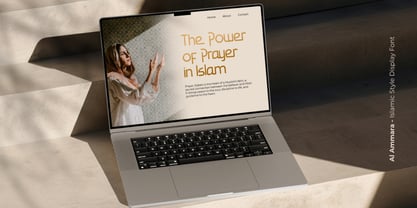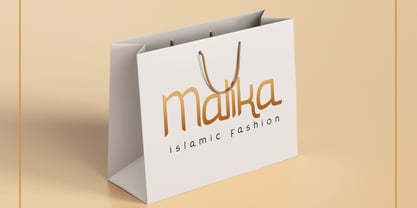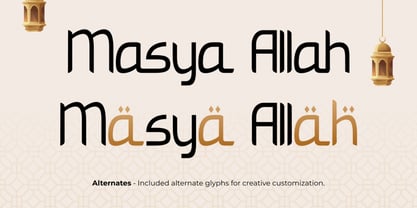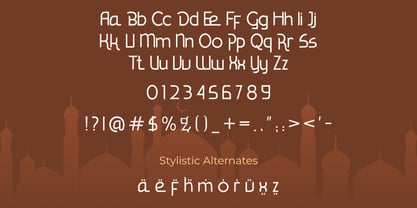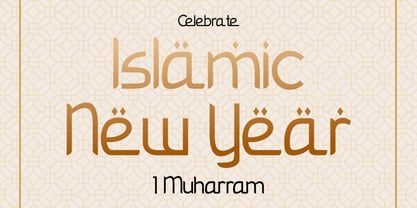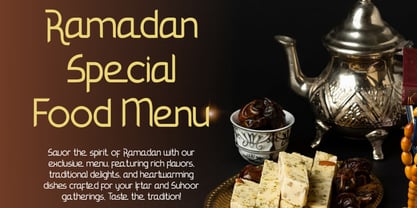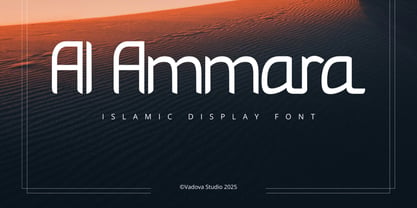
Al Ammara
by Vadova Std
The Al Ammara Font Family and published by Vadova Std. Al Ammara contains 1 styles. More about this family
Al Ammara is a decorative Islamic-style display font inspired by traditional mosque architecture, geometric ornamentation, and Middle Eastern visual heritage. Designed with smooth curves, tall vertical strokes, and distinctive stylistic alternates. Al Ammara is highly relevant for Ramadan and Eid campaigns, Islamic event promotions, halal product packaging, mosque event posters, Middle Eastern restaurant branding, travel campaigns, cultural exhibitions, and editorial covers.